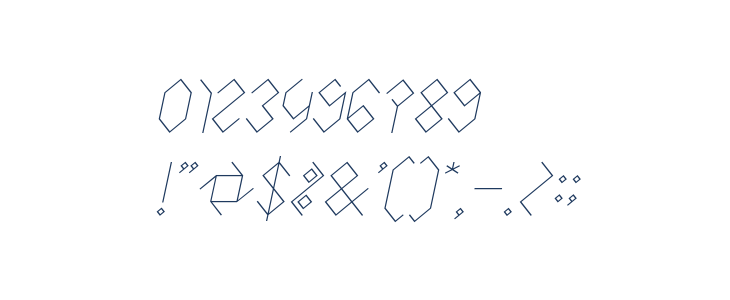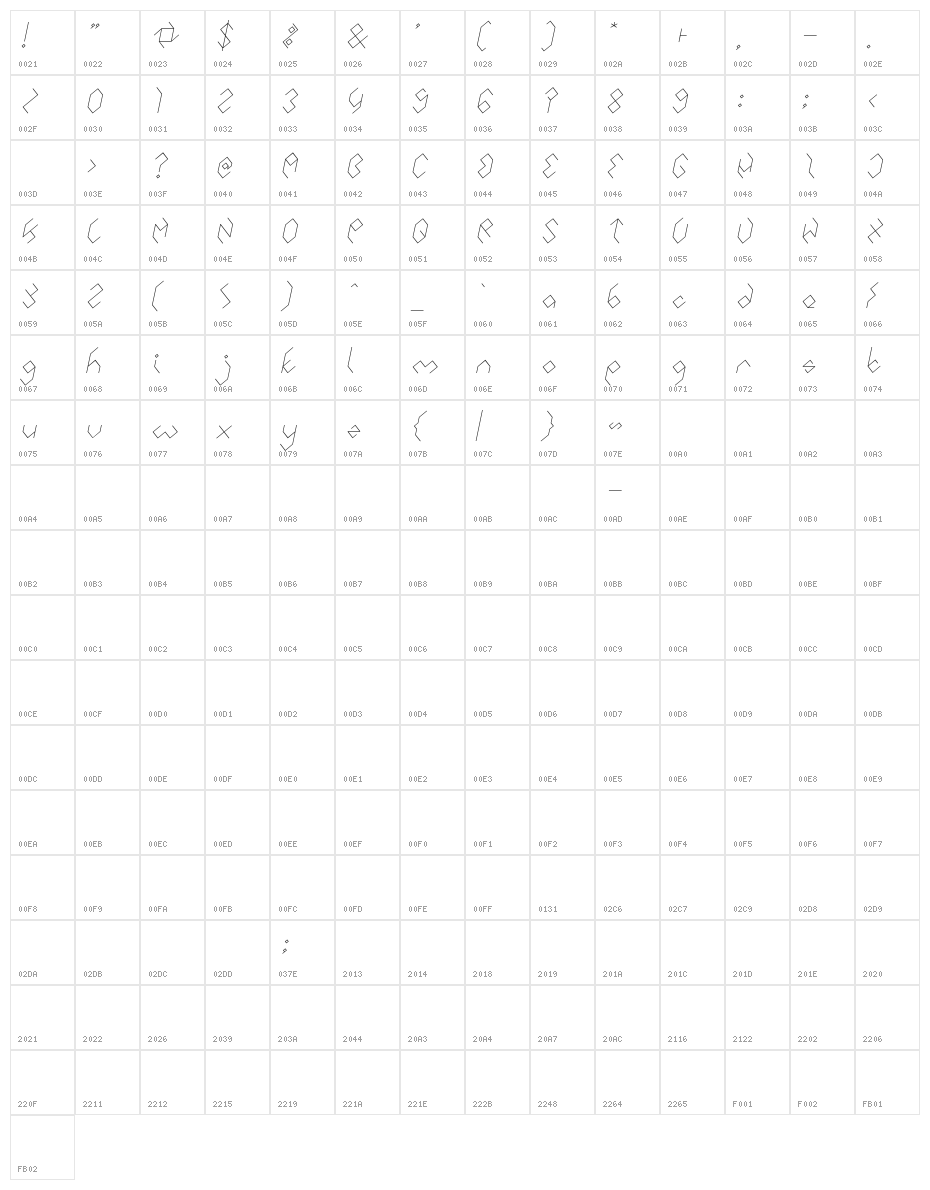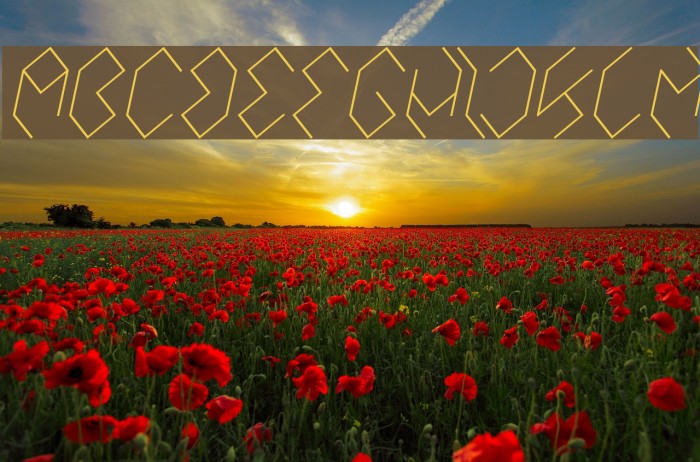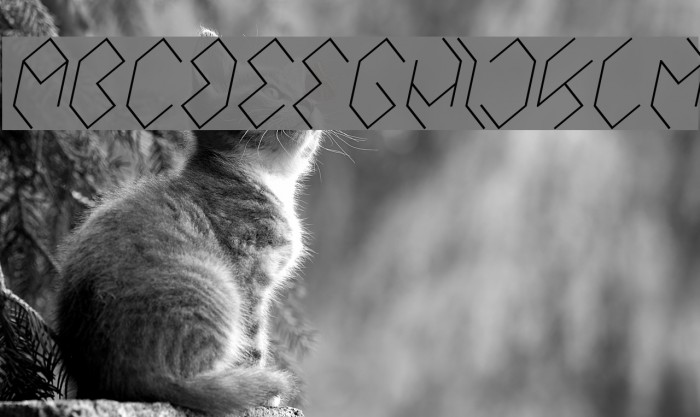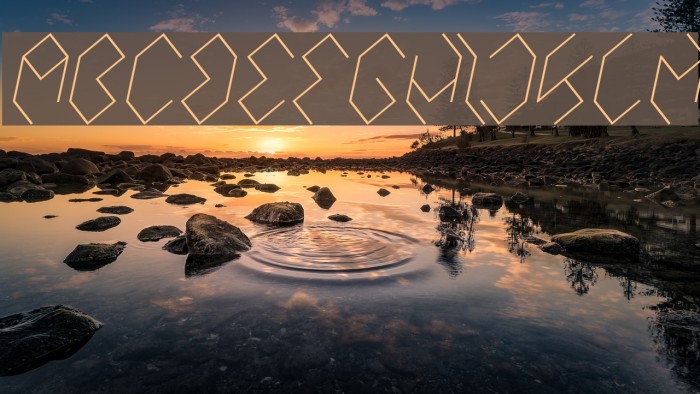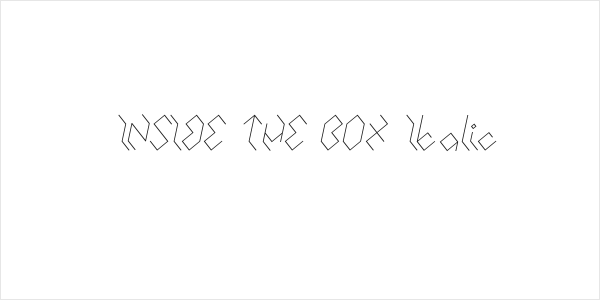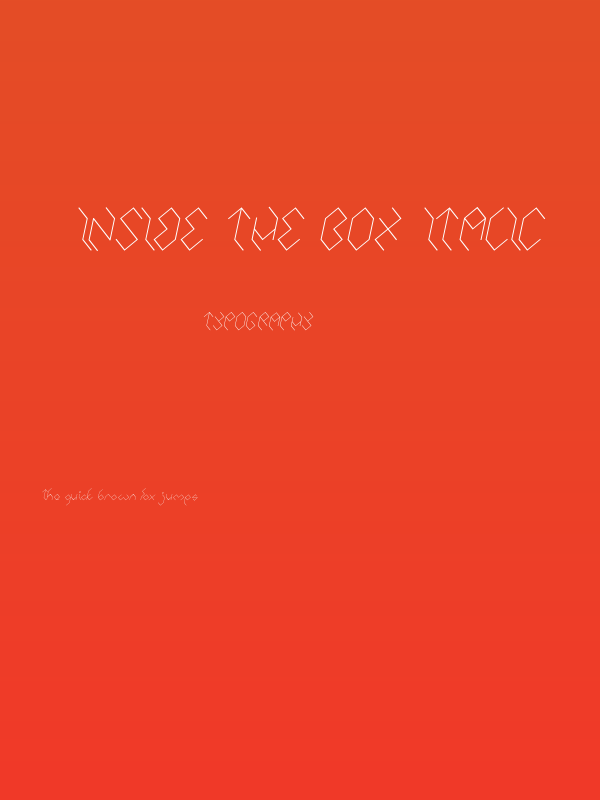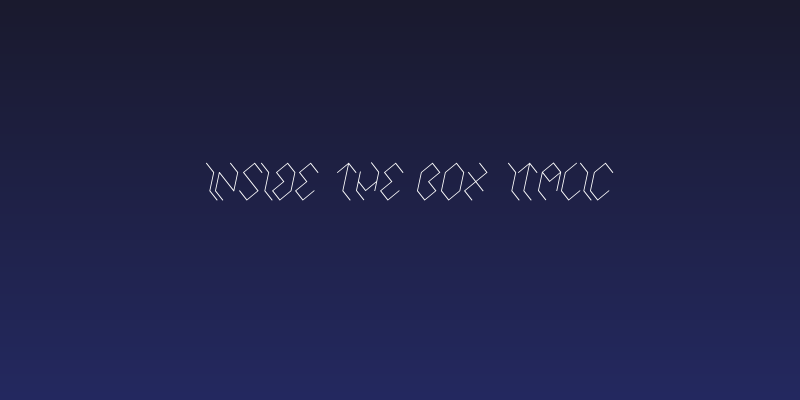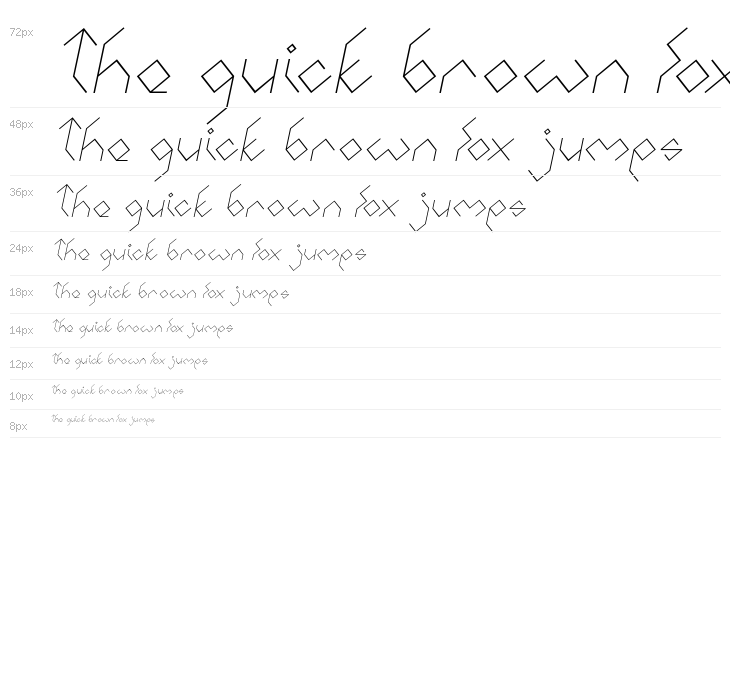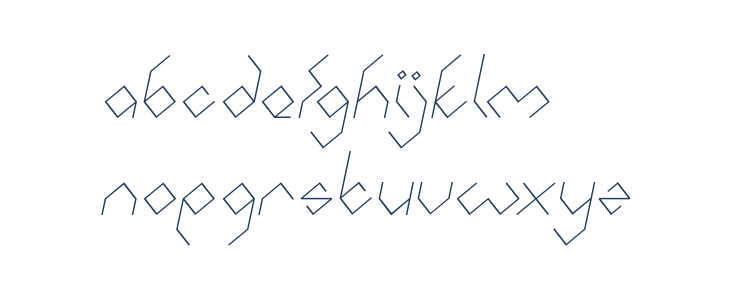
INSIDE THE BOX Italic Font
INSIDE THE BOX Italic Description
This font features a unique geometric design with angular, box-like shapes that create a modern and edgy appearance. Each character is constructed with straight lines and sharp angles, giving it a futuristic and technical feel. The italic style adds a dynamic slant to the characters, enhancing the sense of movement and energy. The uppercase and lowercase letters maintain a consistent style, while the numerals and special characters integrate seamlessly with the overall design. This font stands out with its distinctive and unconventional look, making it ideal for creative and bold projects.
| Proposed Projects | Ideal for tech-themed designs, futuristic branding, modern art projects, and innovative advertising campaigns. |